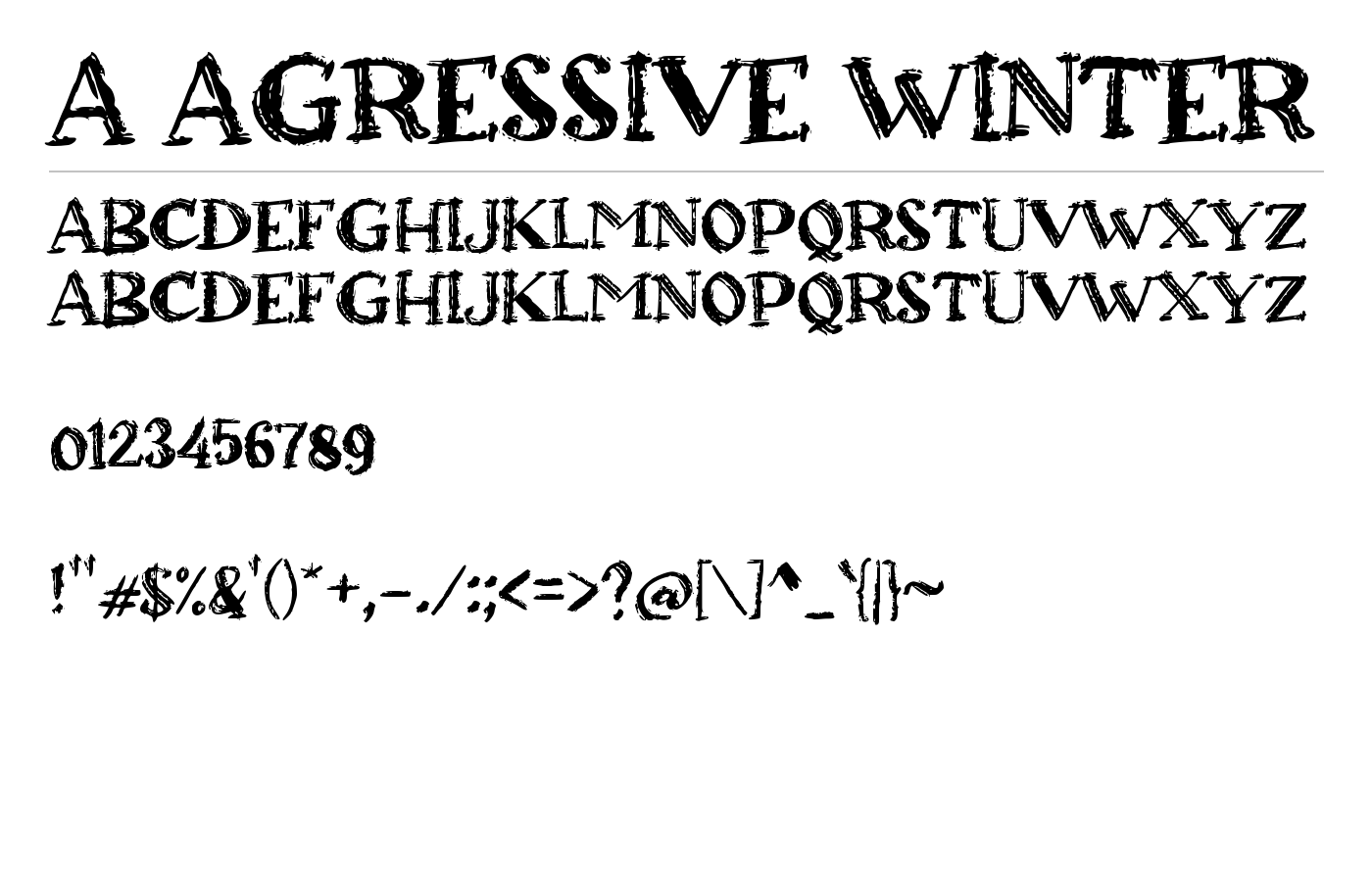
Agressive Winter is a bold serif font with a distressed, rough texture that gives it a strong, edgy character. Its uneven strokes and jagged edges create a dynamic, aggressive feel, making it ideal for designs that need to evoke intensity, toughness, or a raw, wintery atmosphere. This font works best for striking headlines, posters, or branding that aims to stand out with a rebellious, rugged personality.
a Agressive Winter Font
About a Agressive Winter Font